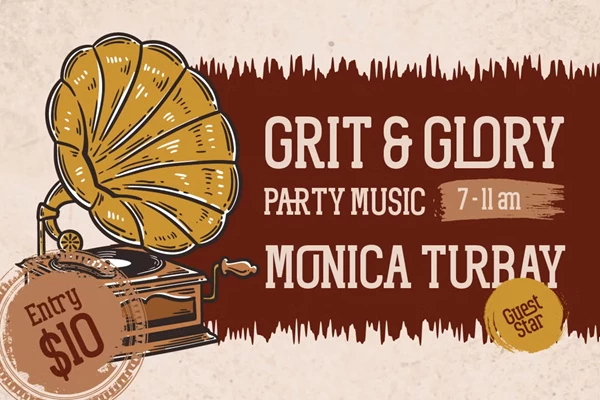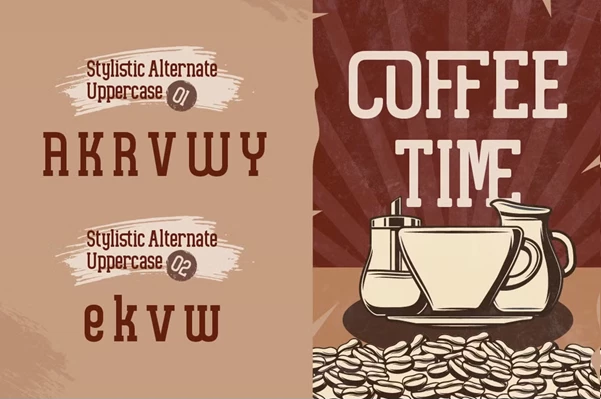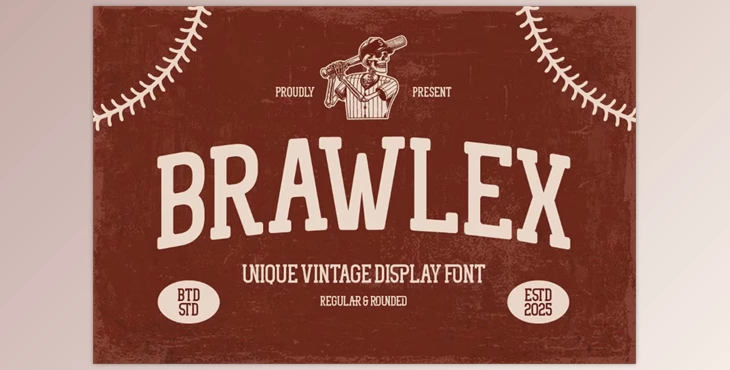
Brawlex Font:
Brawlex is an eye-catching display font inspired by varsity sports, vintage posters, and kitschy western styling. With its bold aesthetic, Brawlex comes in two styles: Regular and Rounded, both of which can be used for modern logos, retro posters, or classic vintage signage. Additionally, Brawlex works perfectly for labels and packaging, social media graphics, music flyers, and many other designs that require a modern touch with a nostalgic twist.
Some great features of Brawlex Font:
- Comprehensive Character Set: Uppercase letters, lowercase letters, numbers, and punctuation marks.
- Creative Flexibility: Design uniqueness and creativity through alternates and ligatures.
"Brawlex Font" Samples: